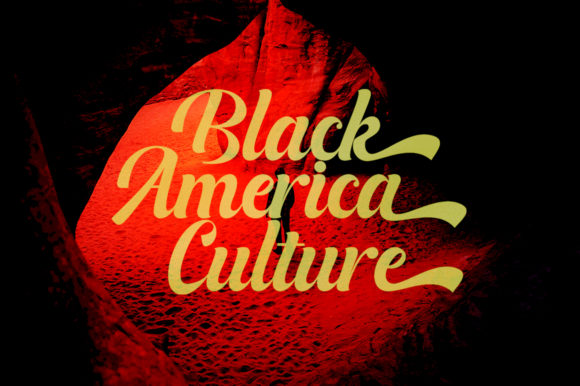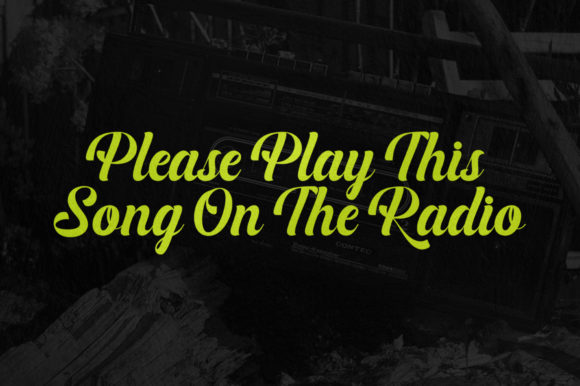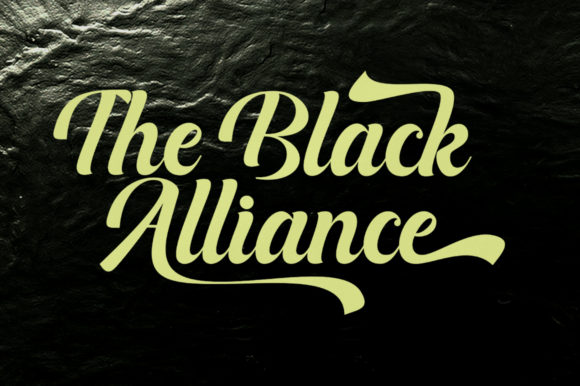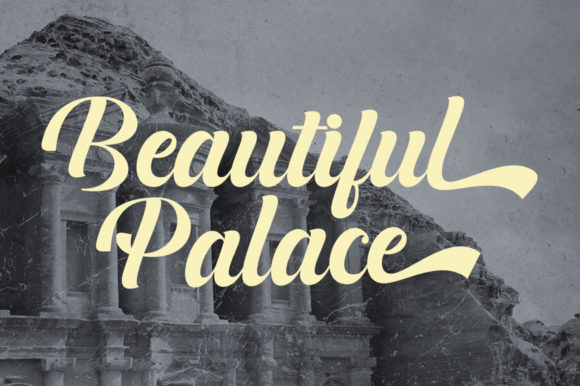
Bufally Font
About Bufally Font
Bufally is a soft, bold, elegant and fun vintage script font. It can be used for various purposes such as logos, wedding invitations, t-shirts, letterheads, signage, news, posters, badges, and more.